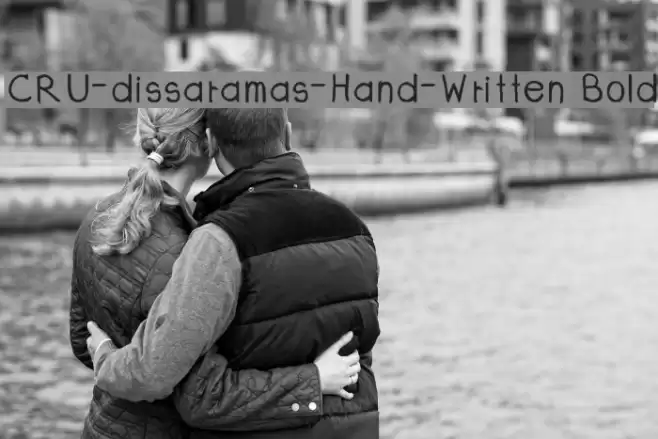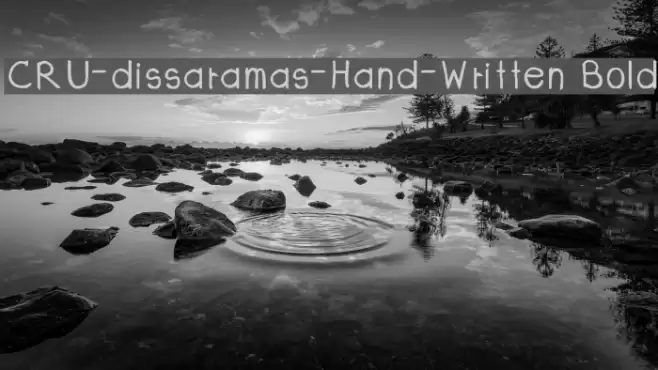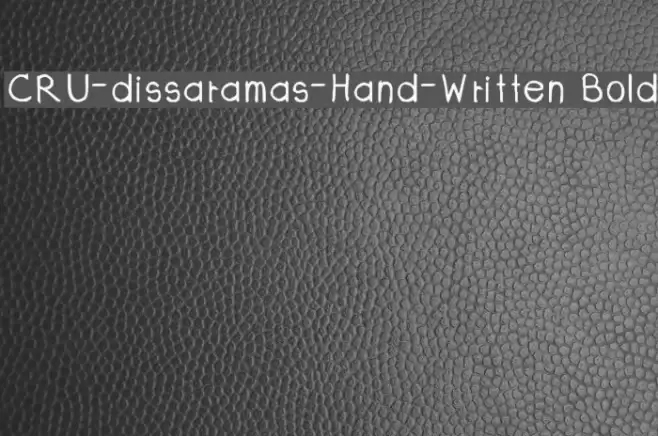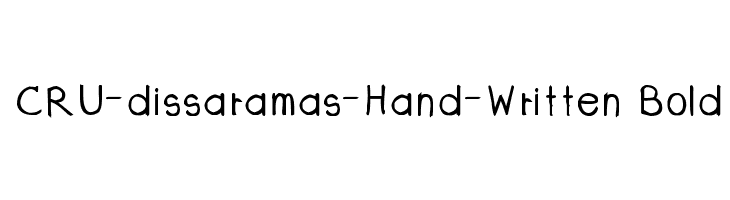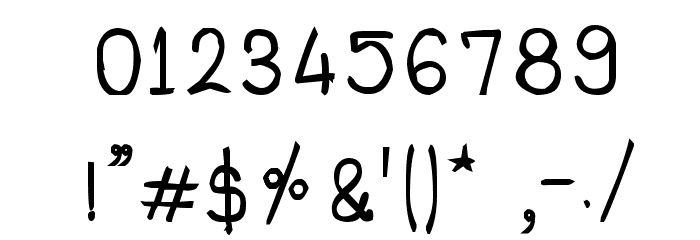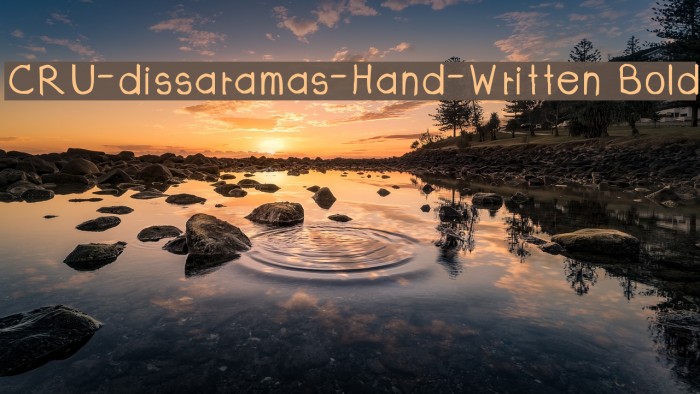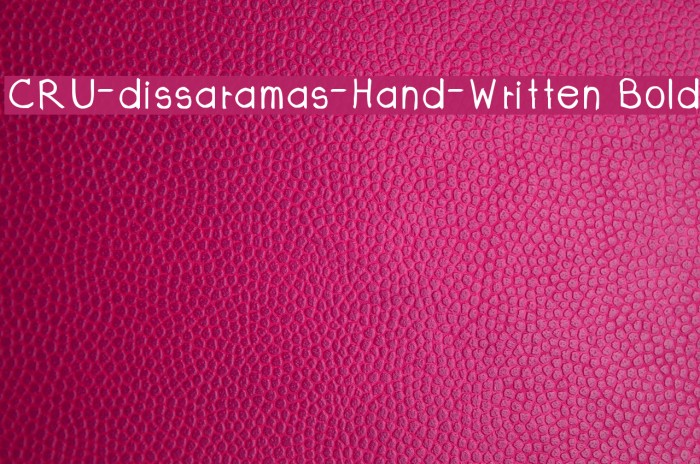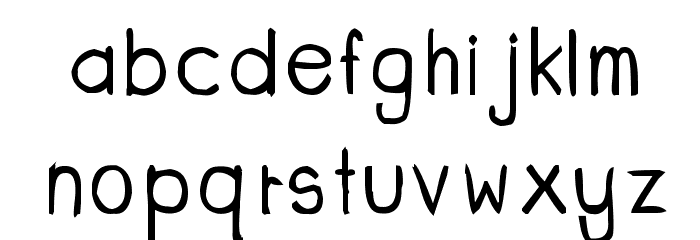
CRU-dissaramas-Hand-Written Bold Font
CRU-dissaramas-Hand-Written Bold Description
This font features a playful and casual handwritten style, characterized by its irregular, slightly wobbly lines that give it a charming, informal appearance. The letters are bold and rounded, with a consistent stroke width that maintains readability while adding a touch of whimsy. The uppercase and lowercase letters are distinct, with the lowercase letters having a slightly more exaggerated and playful form. The numbers and special characters follow the same style, ensuring a cohesive look across all text elements. This font exudes a friendly and approachable vibe, making it ideal for projects that require a personal touch.
A bold, playful handwritten font with a casual and friendly style from Uncategorized fonts.
- Overall Style: Casual